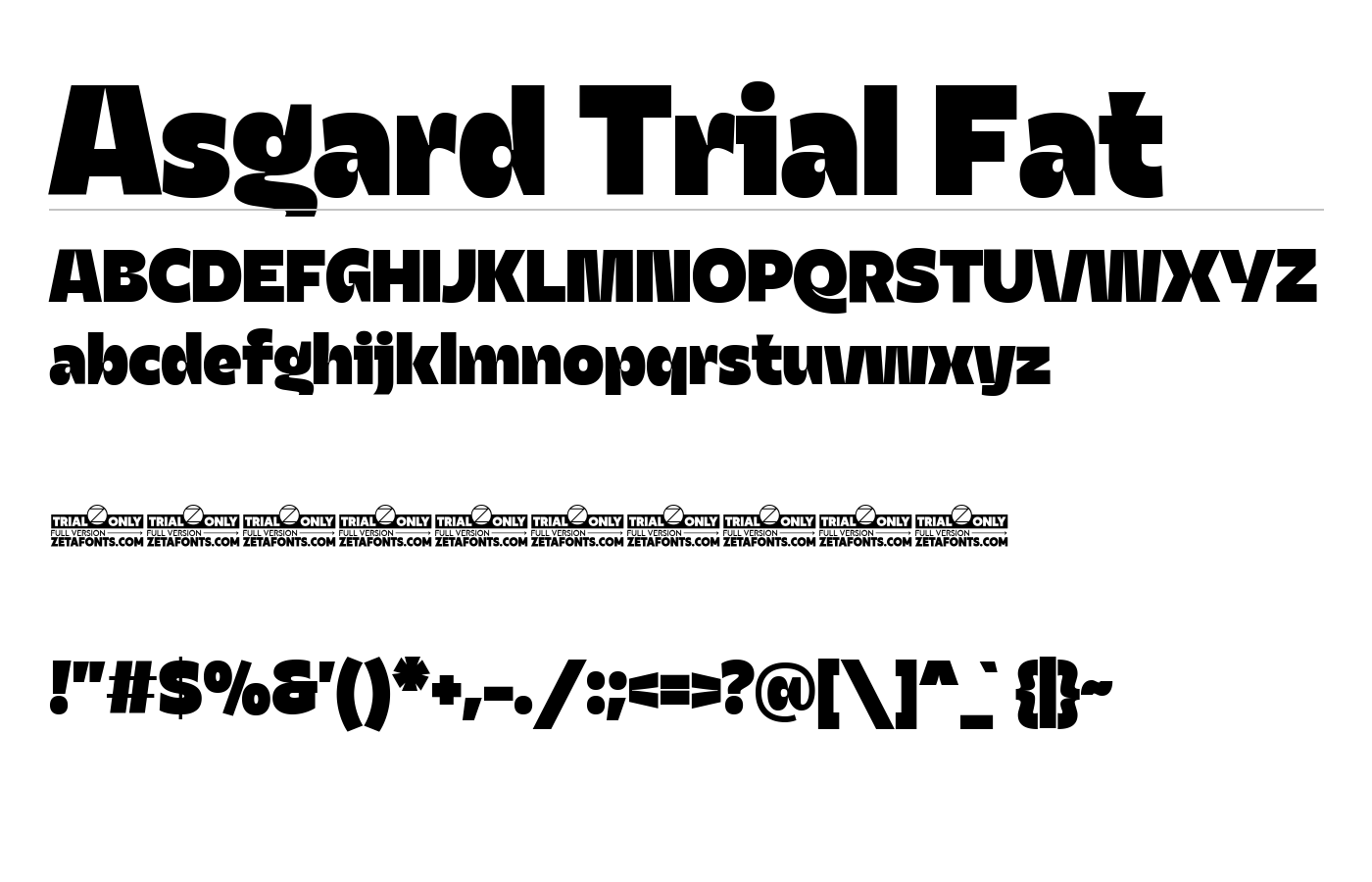
Asgard Trial Fat is a bold, condensed sans-serif font with a strong, assertive presence. Its high weight and tight spacing give it a powerful and modern feel, making it ideal for headlines, logos, and branding that demand attention. The font’s slightly quirky letterforms add a touch of personality, perfect for dynamic and confident design projects.
Asgard Trial Font
About Asgard Trial Font